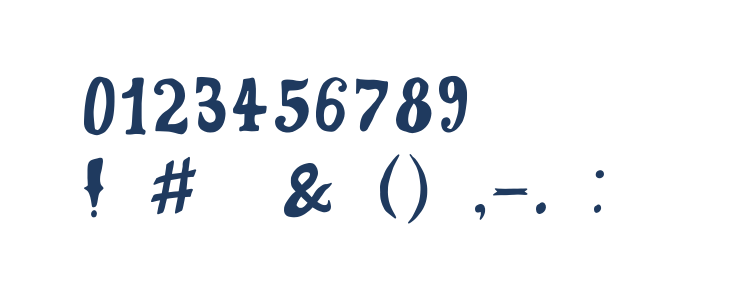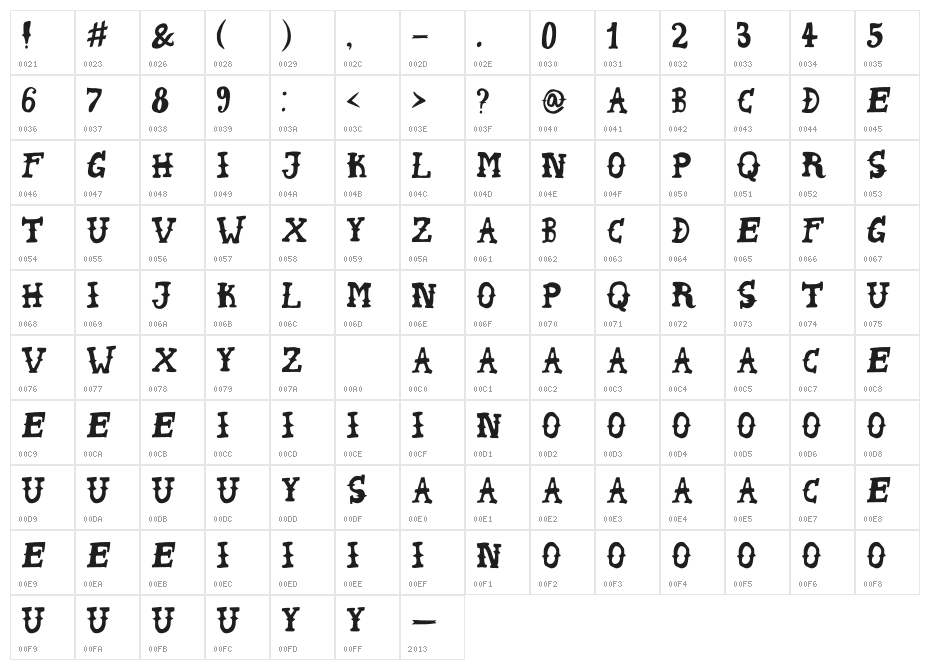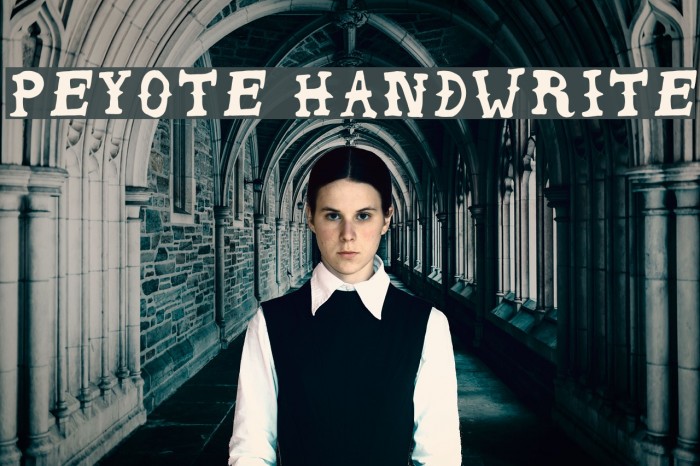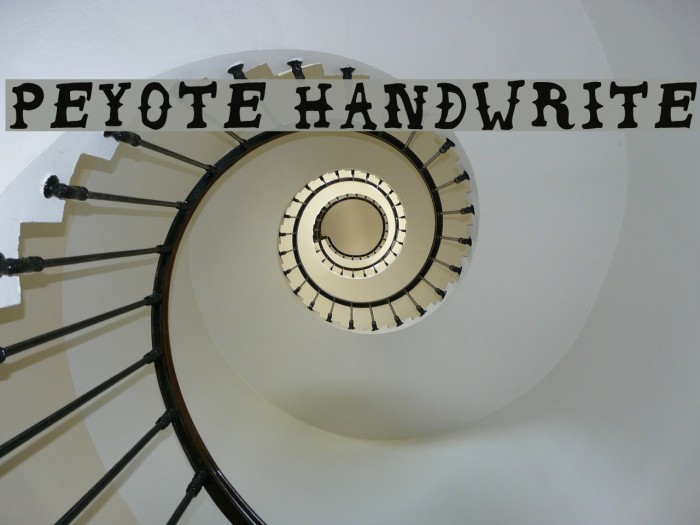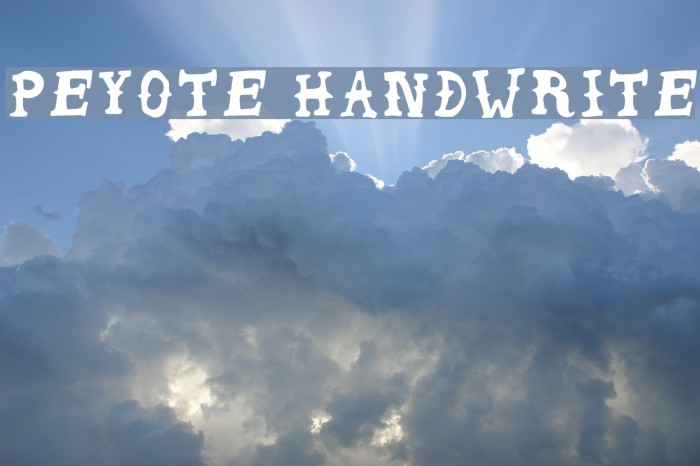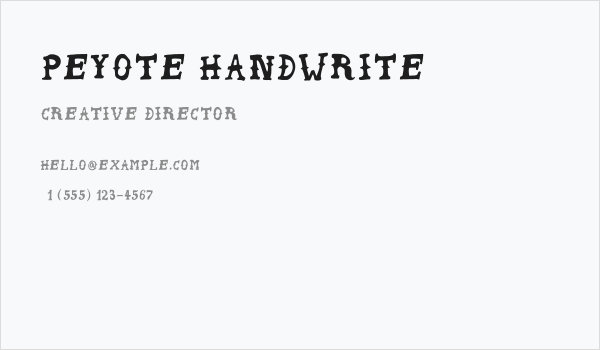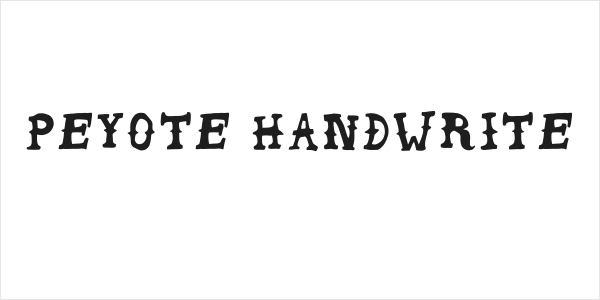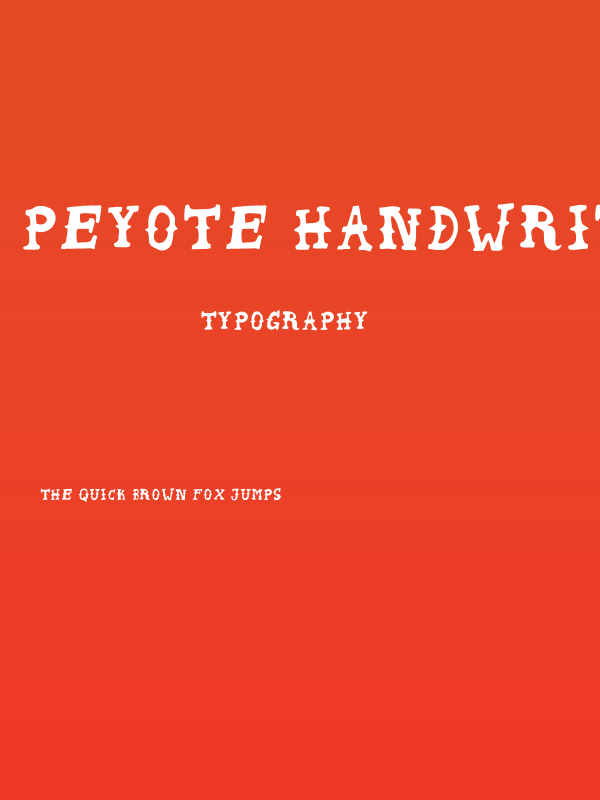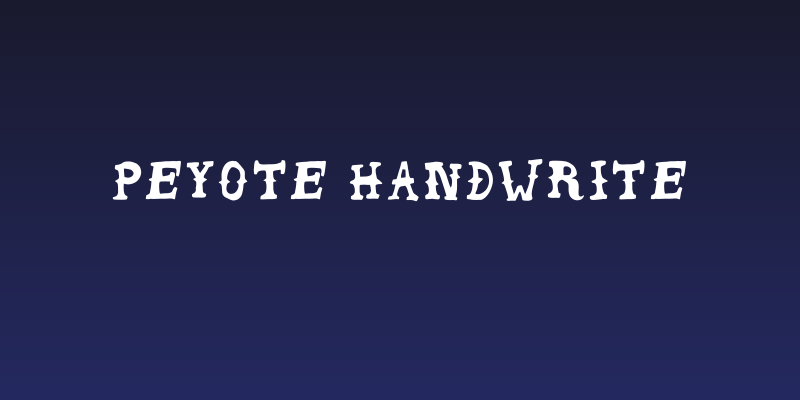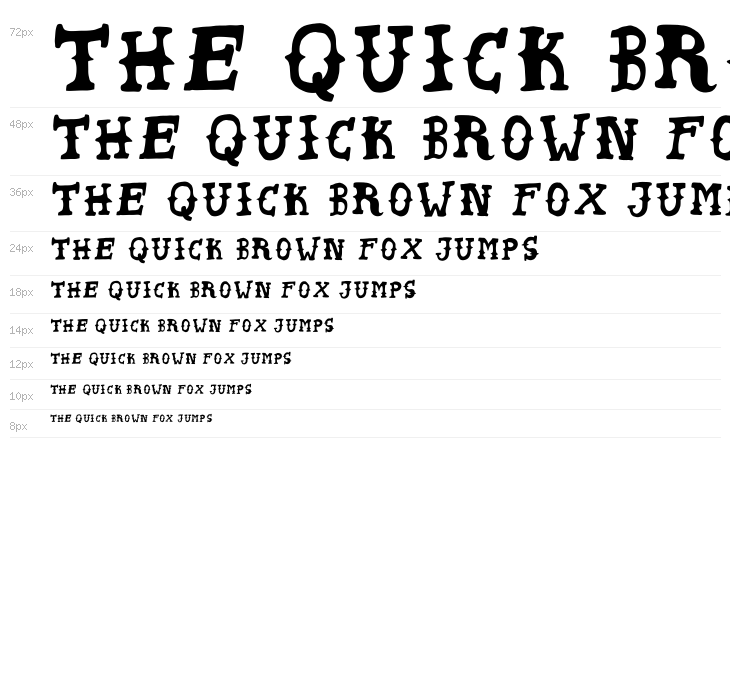
Peyote Handwrite Font
Peyote Handwrite Description
This font features a bold and playful handwritten style, characterized by its irregular and dynamic strokes. The letters have a whimsical and slightly rugged appearance, with varying thickness that adds to its charm. The uppercase and lowercase letters maintain a consistent style, while the numbers and special characters complement the overall design. The font's unique personality makes it stand out, offering a sense of creativity and individuality. Its bold nature ensures readability while maintaining an artistic flair, making it suitable for projects that require a touch of fun and informality.
| Proposed Projects | Ideal for creative projects such as greeting cards, posters, children's books, and playful branding. |